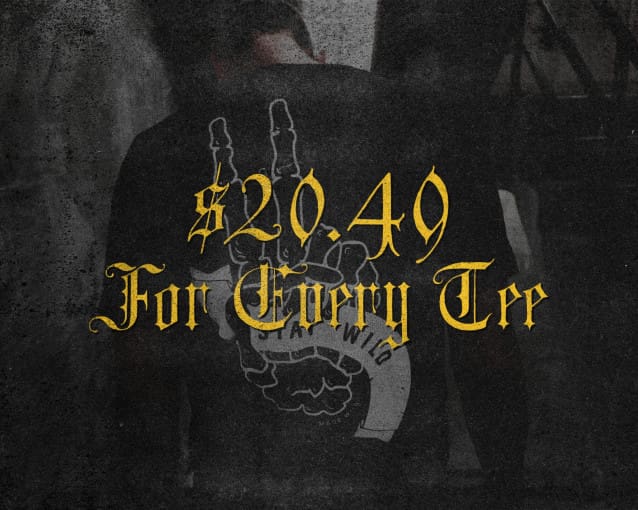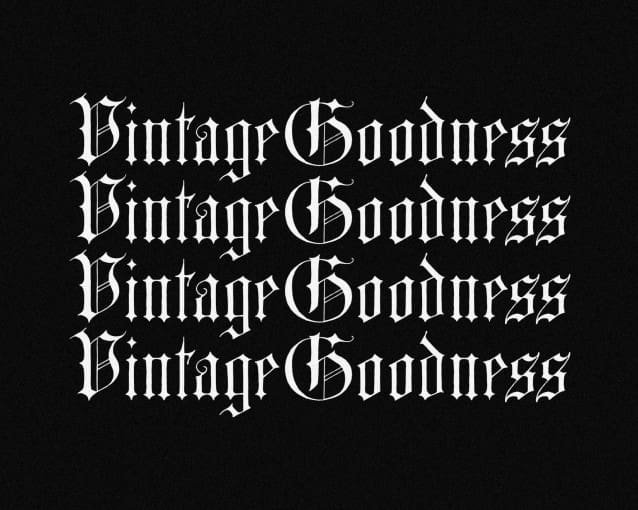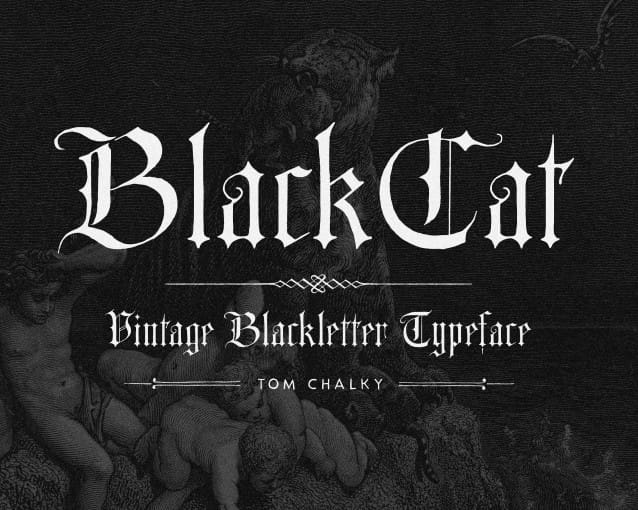
Blackcat Blackletter Font
Blackcat Blackletter Font, an authentically Vintage Blackletter Font. Its design is based on a specimen from the 1800s that oozed that classic Blackletter style that is (I’m glad to see) making a glorious comeback!